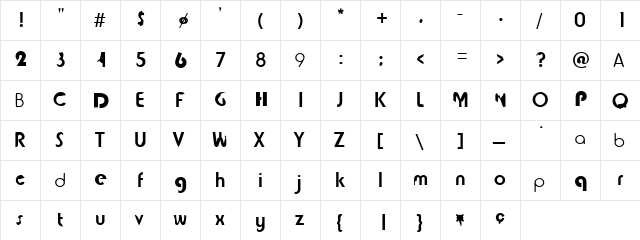
tjockebo Regular Font Preview
tjockebo Regular
Design Context for tjockebo Typeface
tjockebo is a composed and adaptable typeface that performs quietly and consistently across a wide range of design contexts.